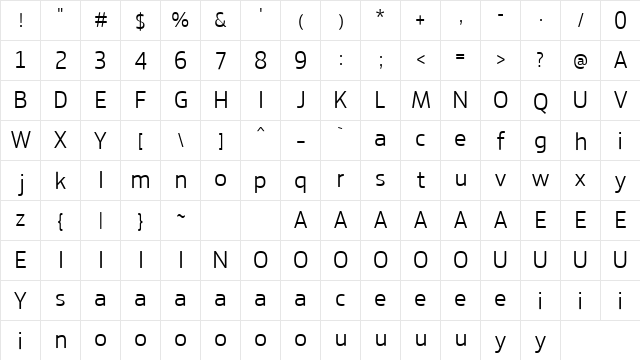
Jervinho Regular
| Designer | Soufiane Abid |
Design Context for Jervinho Typeface
Jervinho offers clean, dependable letterforms without strong stylistic allegiance, making it a practical choice for designers who need flexibility.
Pro Tip: Pair Jervinho with a font of contrasting weight or personality to build a more expressive typographic hierarchy.